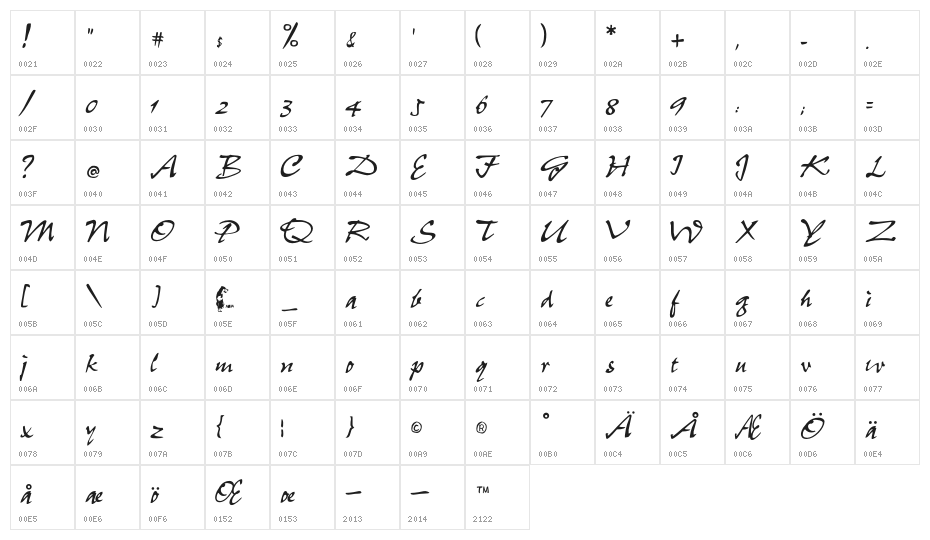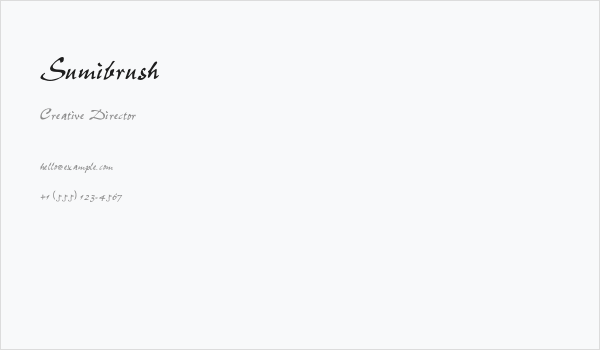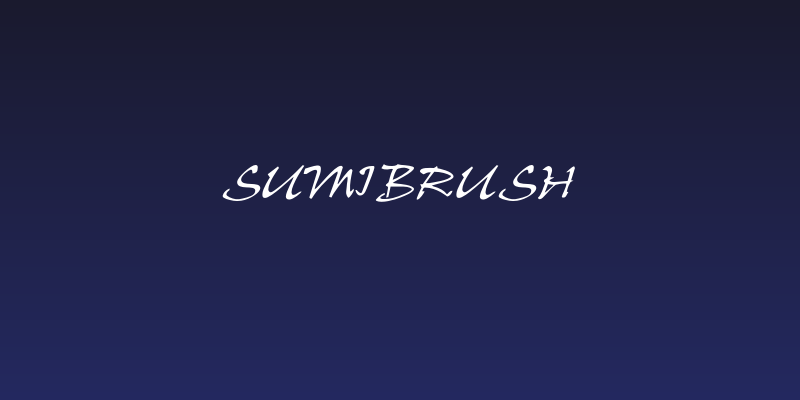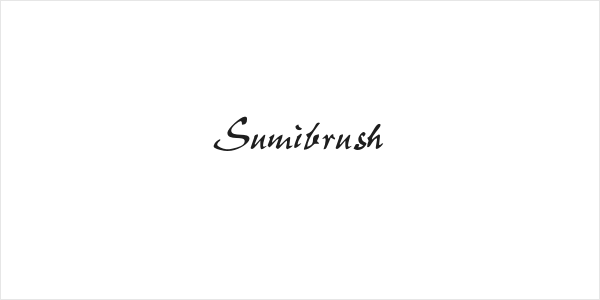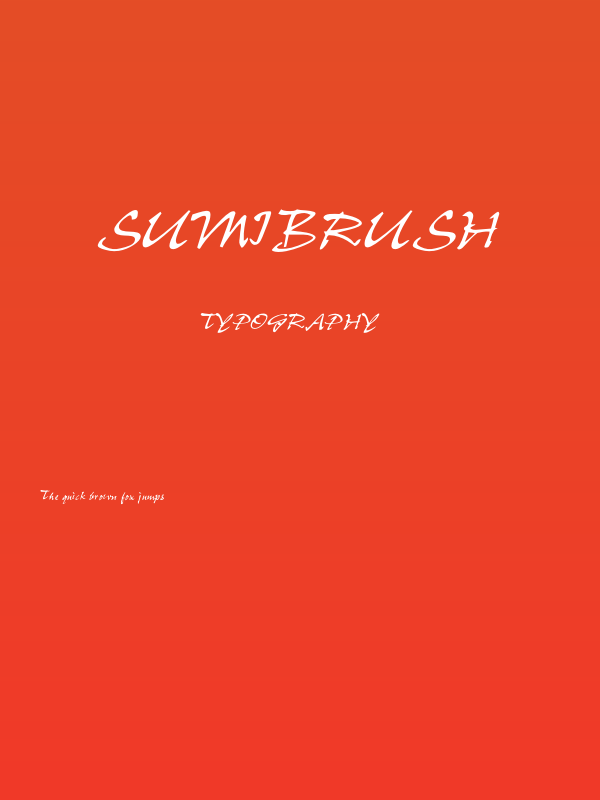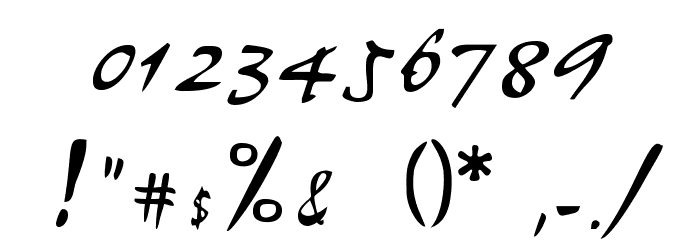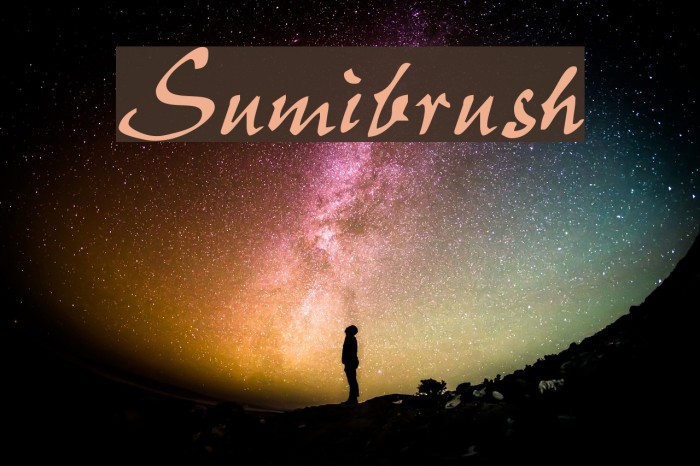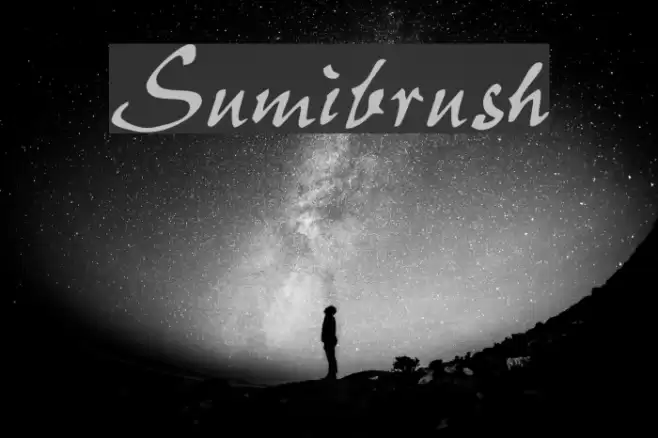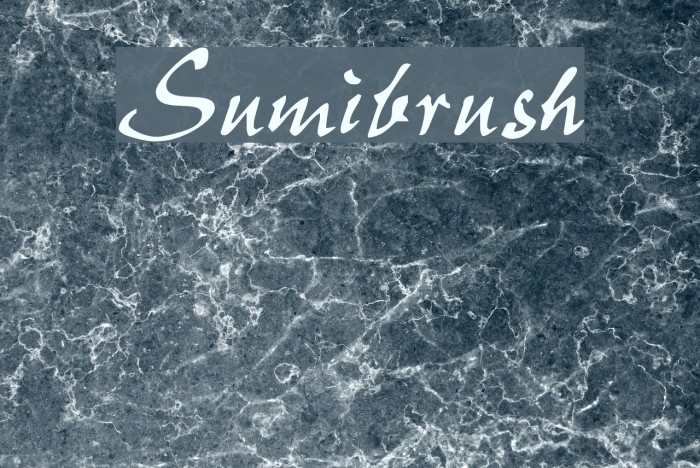
Sumibrush Font
Sumibrush Description
This font features a dynamic and fluid script style, reminiscent of brush strokes. The characters exhibit a lively and expressive quality, with varying stroke widths that add a sense of movement and energy. The uppercase letters are bold and dramatic, while the lowercase letters maintain a consistent flow, enhancing readability. The numerals and special characters are crafted with the same attention to detail, ensuring a cohesive look across all elements. This font's artistic flair makes it suitable for creative and expressive design projects.
| Use Case | Logos, Headlines, Artistic projects |
| Proposed Projects | Ideal for branding, invitations, greeting cards, and artistic posters. |